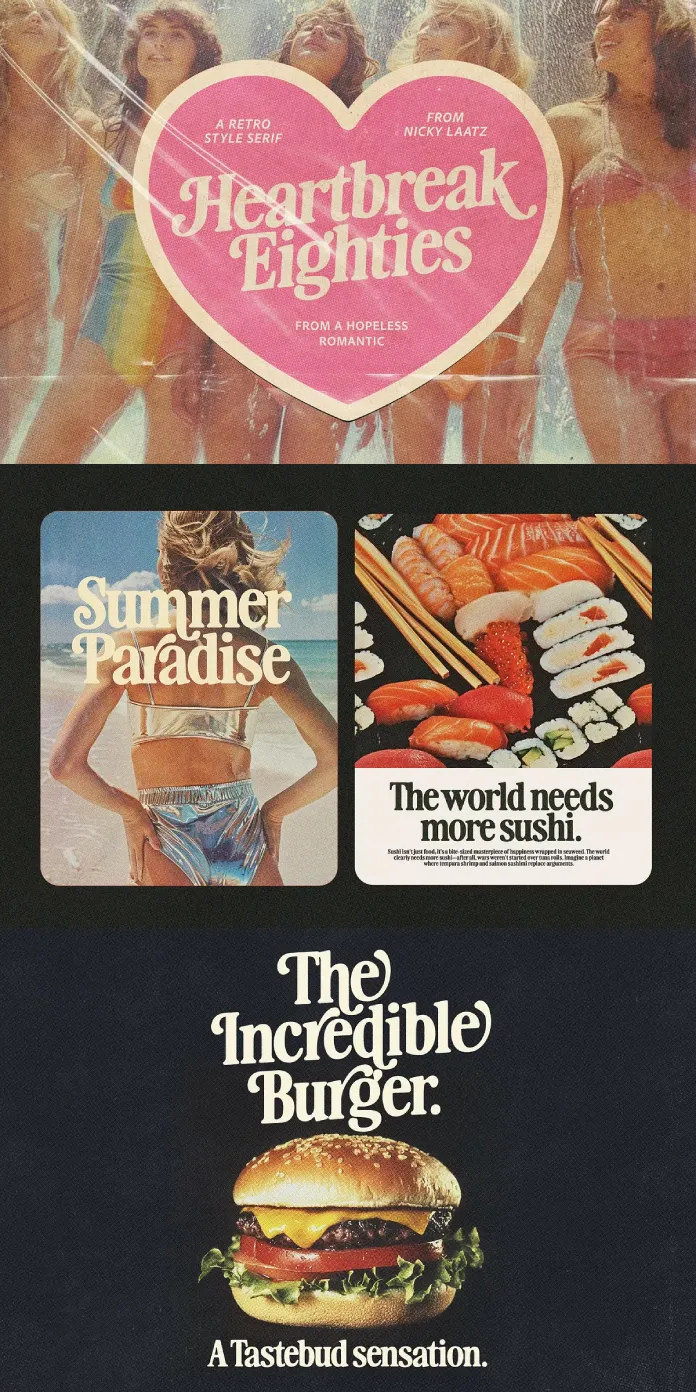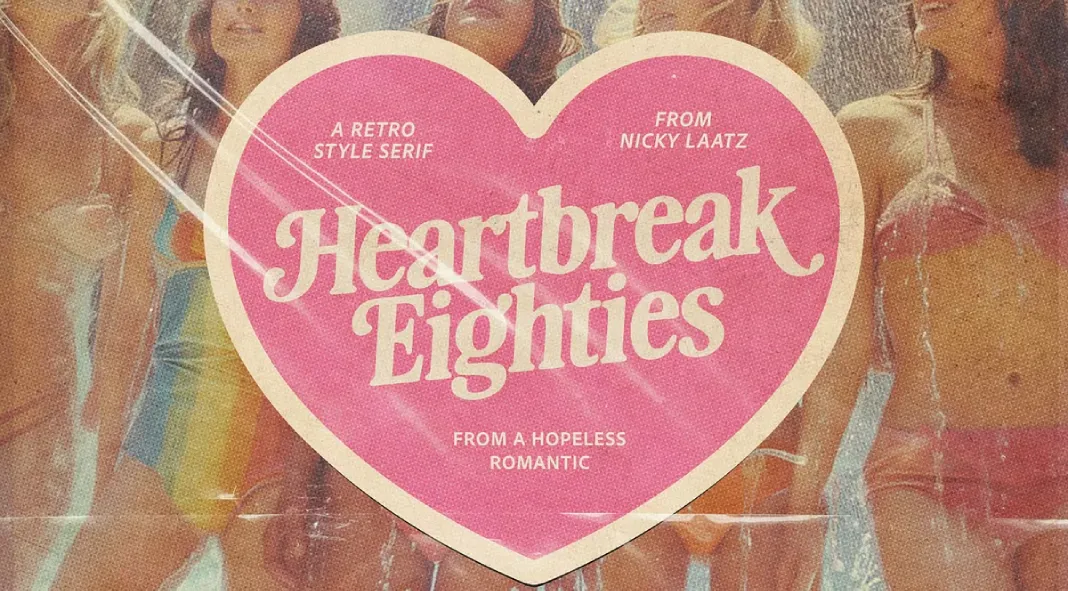
The Nostalgic Serif Style of the Heartbreak Eighties Typeface Provides a Retro Revival That Stuns
Designed by Nicky Laatz, the Heartbreak Eighties typeface is a time machine wrapped in nostalgia and sophistication. With bold ’80s vibes, a dash of silky elegance, and enough personality to captivate any creative, this typeface makes a statement that refuses to be ignored.
A Retro Chameleon with Modern Appeal
Heartbreak Eighties is the perfect marriage of opposites. Imagine if Glamour Absolute and Awesome Serif had a love child—this font would be it. Its retro roots are unmistakable, yet it adapts seamlessly to both feminine and masculine design projects. This versatility is a dream for branding work, where consistency and adaptability are key.
Whether you’re designing for bold display headlines or delicate body text, Heartbreak Eighties delivers. For headlines, tighten up that tracking to emphasize its striking retro appeal. For smaller text, loosen the spacing to enhance readability while maintaining its charm.
Swashes, Alternates, and Endless Possibilities
Heartbreak Eighties doesn’t stop at good looks. A plethora of OpenType swashy alternates lets designers transform it into a full-blown retro showstopper. These flourishes add a unique twist, turning simple text into an artistic statement.
Language Support That Bridges Borders
One of the font’s standout features is its extensive language support. From English and German to Filipino and Friulian, Heartbreak Eighties caters to a wide audience. This inclusivity makes it an excellent choice for international projects, where language diversity is essential.
Oblique Version for Extra Flair
For those who crave even more drama, the typeface also comes in an Oblique version. It’s perfect for adding a touch of dynamism to your designs. Pair the regular and oblique versions together to create contrast and hierarchy in your layouts.
Why Heartbreak Eighties Stands Out
What truly sets Heartbreak Eighties apart is its ability to blend bold nostalgia with contemporary needs. It’s a typeface that knows how to turn heads, whether it’s on a retro-inspired poster, a sleek magazine cover, or playful product packaging. Its versatility, extensive features, and accessible design make it a valuable tool for any designer’s arsenal.
Heartbreak Eighties is more than just a font; it’s a creative companion for anyone looking to infuse their designs with character and charm. With its retro vibes, swashes, alternates, and multilingual support, it’s a typeface that lives up to its name—it’s heartbreakingly good.
Whether you’re a seasoned designer or just starting, Heartbreak Eighties by Nicky Laatz is a typeface worth adding to your collection. It promises to bring a touch of vintage glamour to any project, proving that the ’80s never go out of style.